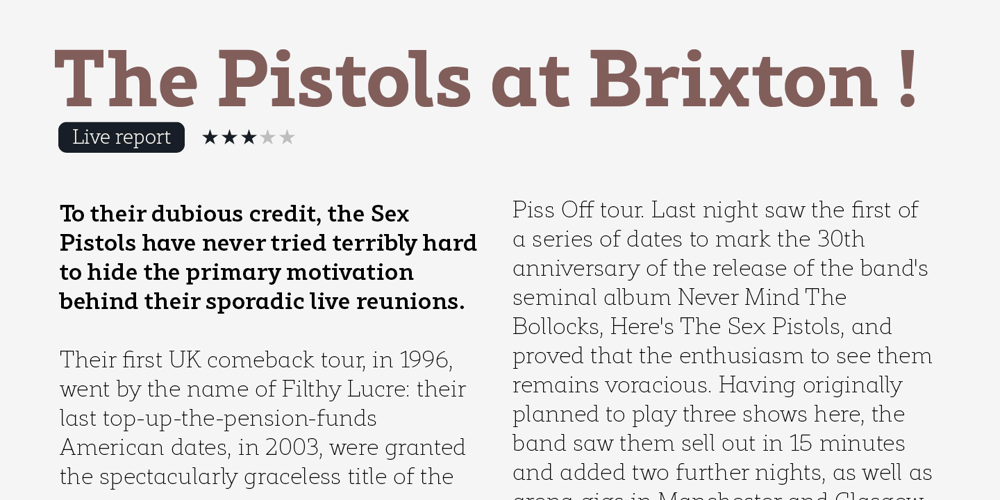
Rival Slab
Rival Slab font
Rival Slab Font Family was designed by Olivier Gourvat and published by Mostardesign. Rival Slab contains 16 styles and family package options. A touch of modernism for all kinds of projects Like the rest of the family (Rival Sans and Rival Serif), Rival slab has round shapes with bevelled endings on certain letters such as G, Q or Z. These are the characteristics that make Rival Slab a contemporary cast iron for all kinds of projects. It provides advanced typographical support with features such as case sensitive forms, small caps, ligatures, alternate characters, fractions, slashed zero, circled, pro kerning…It comes also with a complete range of figure set options It comes in 16 weights with corresponding italics and it’s suited for multiple purposes including editorial use, web font, apps, digital ads, ebook, and also for advertising, long text, packaging and branding. As a modern sans serif font family, Rival Sans has true italics to give more style in long texts.